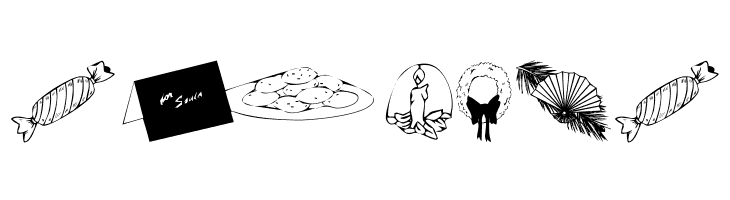
A decorative font with bold, uppercase letters inside candle shapes.
A decorative font with festive Christmas-themed illustrations replacing characters.
A decorative font with a candy cane striped pattern, perfect for festive designs.
A bold, festive font with snowflake-adorned uppercase letters, perfect for winter themes.
A decorative font featuring Kwanzaa-themed icons for each character.
A playful, snowman-themed font perfect for festive projects.
A playful, knitted sweater-style font with a festive, textured appearance.
A festive and elegant script font with medium contrast and flowing strokes.
A festive, script-style font with a textured, snowy appearance.
A decorative and elegant font with intricate serifs and festive flourishes.
A playful, peep-themed decorative font ideal for Easter projects.
A decorative font with letters encased in gift box illustrations, perfect for festive designs.
St. Patrick's Day-themed dingbat font with festive illustrations.
A playful font with characters inside snowman faces, ideal for festive designs.
An ornate, festive font with intricate, frosted designs.
A decorative font with playful Christmas-themed doodles.
A festive, decorative font featuring Christmas-themed elements within each character.
An ornate script font with festive swirls and a textured effect.
A playful, festive font with characters encased in Christmas light shapes.
A festive font with characters inside Christmas light bulb shapes.
A decorative font with a cross-stitch pattern, ideal for festive and handcrafted designs.
A festive, ornament-themed font with bold, enclosed characters.
A decorative font with characters inside circular ornaments, ideal for festive designs.
A whimsical, festive font with characters in star shapes and numbers as Christmas trees.
A playful, bubbly font with a snowball-like texture and rounded edges.
An ornate and decorative font with intricate curves and flourishes.
A whimsical, cursive font with decorative elements and a festive flair.
A whimsical, decorative font with intricate embellishments and a festive feel.
An elegant, festive, calligraphic font with decorative swirls and a condensed italic style.
A bold, 3D decorative font with a festive, playful style.
A playful, 3D italic font with bold strokes and decorative elements.
An ornate and decorative font with festive swirls and flourishes.